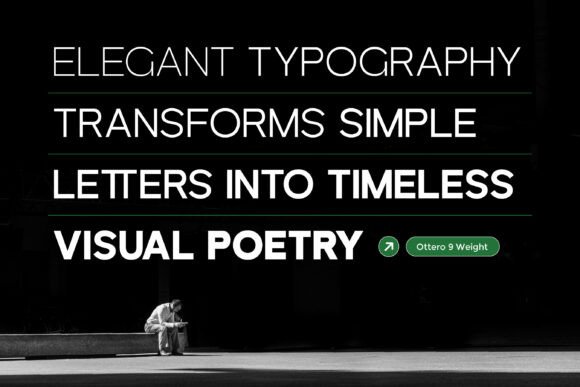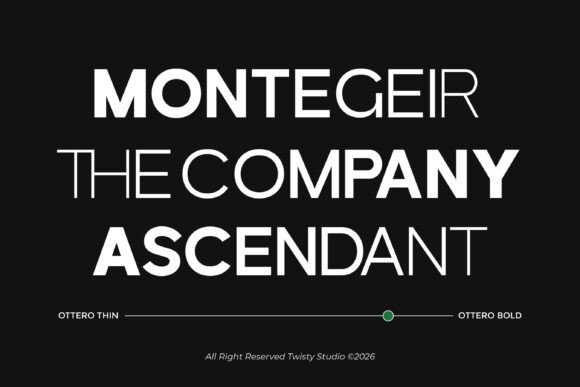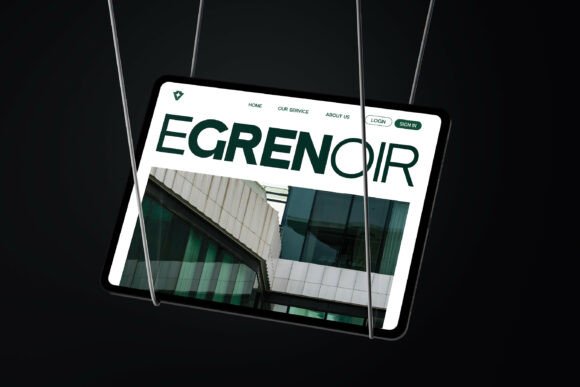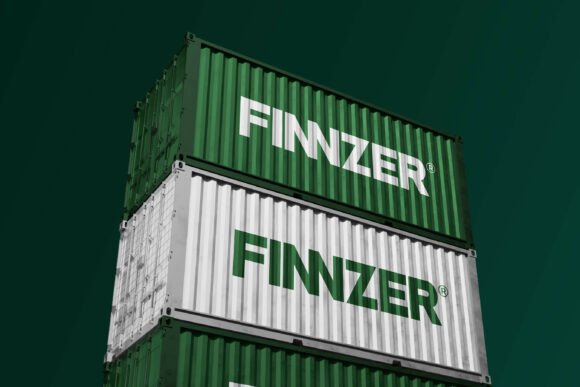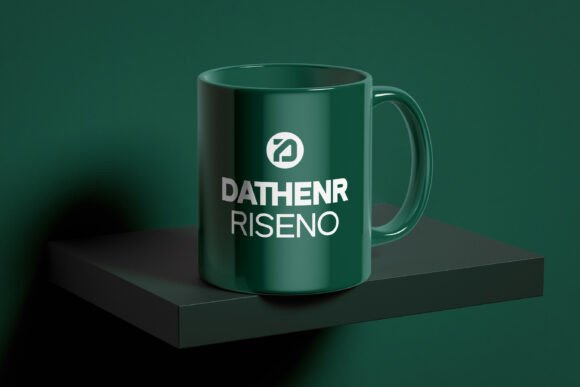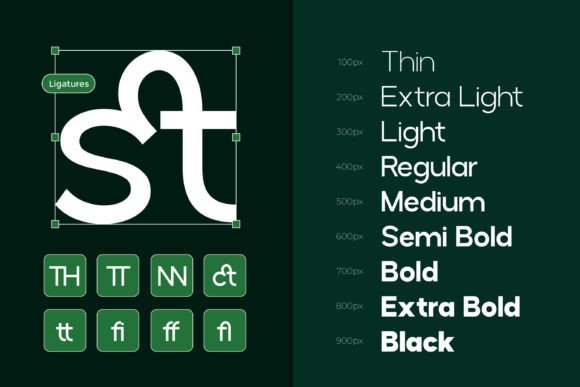
Introduction to Ottero Font
Have you ever stared at a blank canvas, overwhelmed by the endless possibilities of your creative project, only to find the perfect design flowing effortlessly onto the screen? For designers, this moment is priceless. It’s the culmination of hard work, attention to detail, and the right tools. One such tool that can elevate your design game is the Ottero Font – a clean sans serif family font that delivers clarity, consistency, and modern simplicity across every design.
Whether you’re working on a logo, brochure, or website, Ottero Font provides the flexibility to build strong visual hierarchy while maintaining a cohesive and professional look. Its clean lines, balanced proportions, and refined structure create a smooth and highly readable appearance, making it suitable for both bold headlines and extended body text. With its minimalist approach, every detail feels precise and uncluttered – a true design resource for creatives.
Key Features of Ottero Font
- Designed with a unique aesthetic, making it an ideal design resource for creative professionals.
- Features a modern and elegant design style, perfect for a variety of creative projects, from branding to publishing.
Honest Review: Ottero Font
I recently stumbled upon the Ottero Font while searching for a unique design resource for my creative project. After giving it a try, I wanted to share my honest thoughts on this font.
What works well: ✨ The Ottero Font offers a high-quality design with a clean and modern aesthetic. The transparent background makes it perfect for overlaying on images or using as a standalone element. I also appreciate the free download option, which is always a plus for designers on a budget.
- High-quality design with a modern aesthetic
- Transparent background for easy overlaying
However, there are some limitations to consider: ⚠️ The font’s versatility is somewhat limited, as it’s primarily designed for use in digital media. Additionally, the font family is relatively small, which may not be suitable for large-scale projects.
Overall, I’m impressed with the Ottero Font’s quality and design. While it may not be suitable for all design needs, it’s a great resource to have in your toolkit for creative projects. With a little creativity, you can achieve some amazing results with this font.